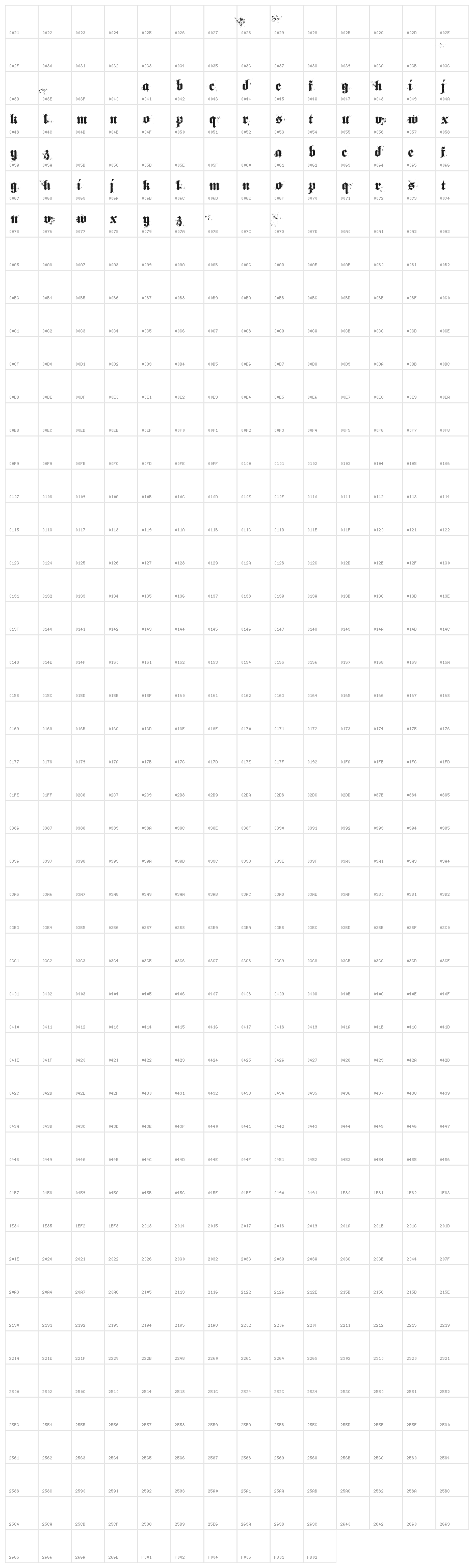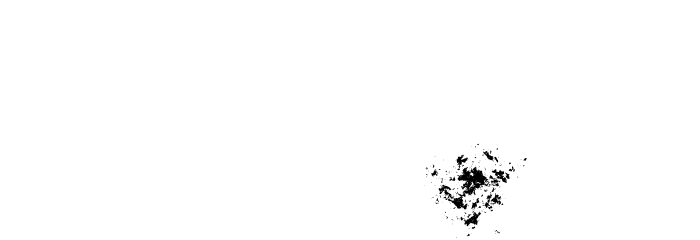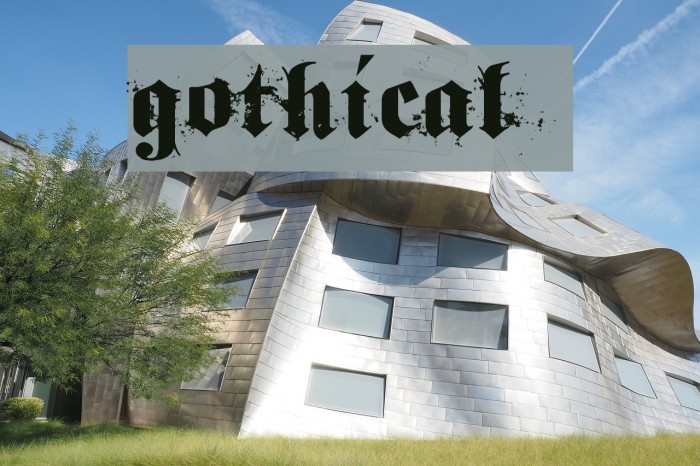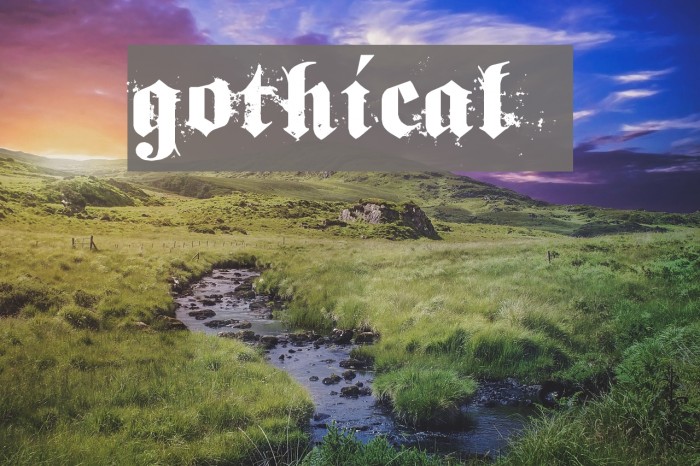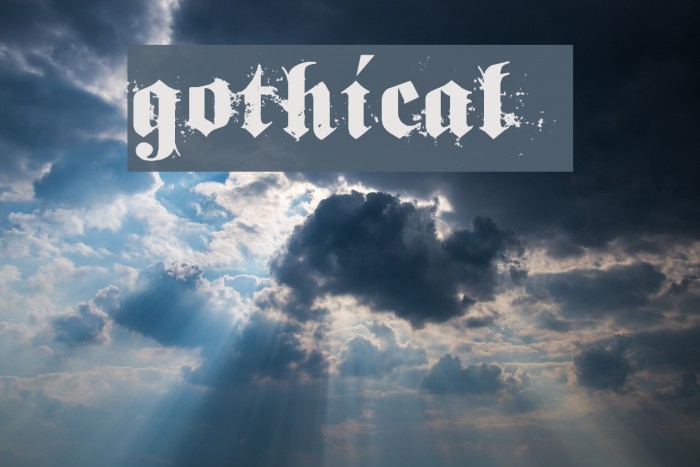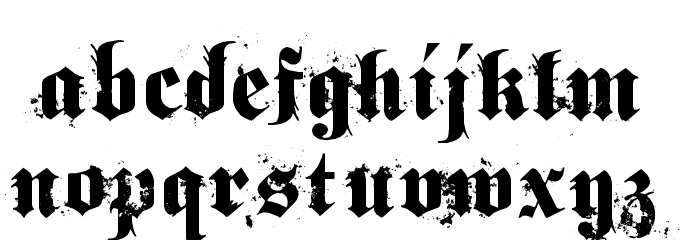
gothical Font
gothical Description
This font exudes a classic Gothic style with its intricate and ornate letterforms. Each character is crafted with sharp, angular lines and dramatic flourishes, embodying a sense of historical elegance and mystery. The texture appears distressed, adding a rugged, aged effect that enhances its medieval aesthetic. This font is perfect for projects that require a touch of antiquity and sophistication, such as historical publications, themed event invitations, or branding that seeks to evoke a sense of tradition and grandeur.
| Proposed Projects | Ideal for historical publications, themed event invitations, or branding that evokes tradition. |